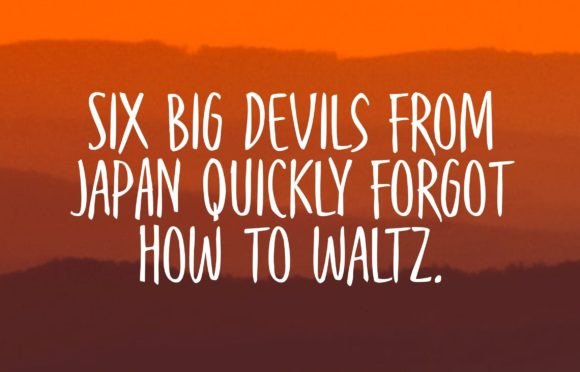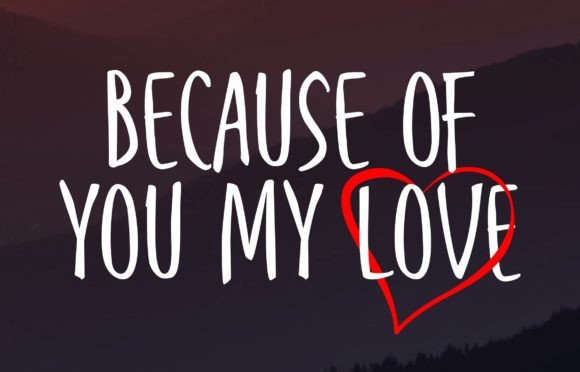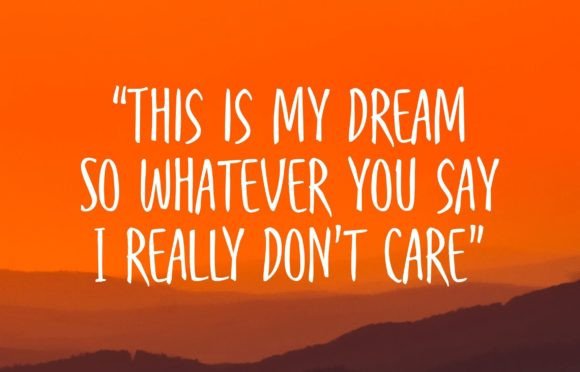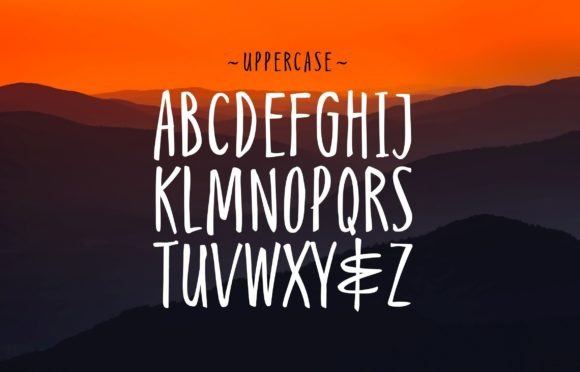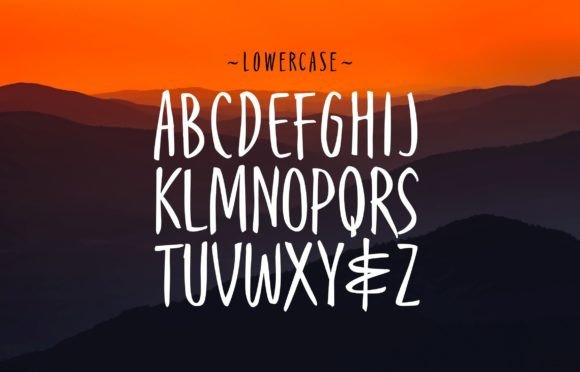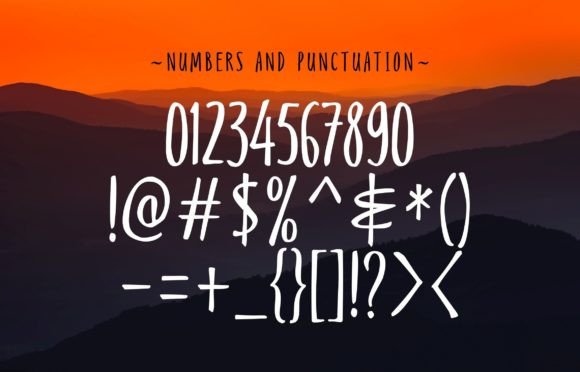
Introduction to Kobajeon Font Font
Fonts play a crucial role in design, and the Kobajeon Font font is a typeface that brings both character and versatility to any project. Whether you’re working on a branding project, a website, or a print design, the Kobajeon Font font offers a unique style that can elevate your work.
Kobajeon is a fun handwritten font with a touch of Japanese style, perfect for product packaging, cartoon, magazine covers, social media, weddings, or just used to express words above the background.
Key Features of Kobajeon Font Font
Why Choose Kobajeon Font Font?
The Kobajeon Font font is more than just a typeface – it’s a design tool that helps you communicate your message with style and clarity. Its unique character set and versatile design make it suitable for a wide range of applications, from elegant invitations to bold headlines.
With its carefully crafted letterforms and balanced proportions, the Kobajeon Font font ensures readability and visual appeal across all mediums.
What makes Kobajeon Font font special?
The Kobajeon Font font stands out with its unique design, exceptional readability, and versatility across various design applications.